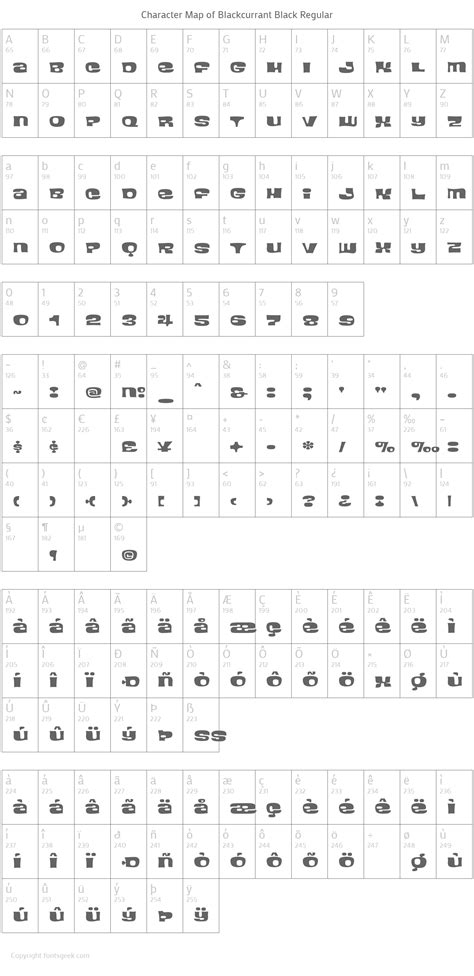
In the world of typography, fonts play a crucial role in setting the tone and style of any design project. Among the myriad of fonts available, the Blackcurrant Black Font stands out for its unique characteristics and versatility. This font is not just a tool for designers but a statement piece that can elevate the visual appeal of any project. Whether you are designing a logo, creating a poster, or crafting a website, the Blackcurrant Black Font offers a distinctive look that can make your work stand out.
Understanding the Blackcurrant Black Font
The Blackcurrant Black Font is a bold and modern typeface that combines elegance with a touch of edginess. Its thick, robust strokes make it highly readable, even at smaller sizes, while its clean lines give it a contemporary feel. This font is particularly popular among graphic designers and typographers who seek a font that can convey both strength and sophistication.
One of the standout features of the Blackcurrant Black Font is its versatility. It can be used in a variety of contexts, from formal documents to playful designs. Its ability to adapt to different styles makes it a favorite among professionals who need a font that can handle multiple projects without losing its impact.
Key Features of the Blackcurrant Black Font
The Blackcurrant Black Font comes with several key features that make it a top choice for designers:
- Bold and Modern Design: The font's thick strokes and clean lines give it a modern and bold appearance, making it ideal for headlines and logos.
- High Readability: Despite its boldness, the font remains highly readable, ensuring that your message is clear and easy to understand.
- Versatility: The Blackcurrant Black Font can be used in a wide range of projects, from formal documents to playful designs, making it a versatile tool for any designer.
- Contemporary Feel: The font's clean lines and modern design give it a contemporary feel, making it perfect for projects that require a fresh and modern look.
Applications of the Blackcurrant Black Font
The Blackcurrant Black Font is incredibly versatile and can be used in a variety of applications. Here are some of the most common uses:
- Logos and Branding: The bold and modern design of the Blackcurrant Black Font makes it an excellent choice for logos and branding. Its thick strokes and clean lines ensure that the brand name stands out and is easily recognizable.
- Posters and Flyers: For posters and flyers, the Blackcurrant Black Font can be used to create eye-catching headlines that grab attention. Its high readability ensures that the message is clear and easy to understand.
- Web Design: In web design, the Blackcurrant Black Font can be used to create a modern and sophisticated look. Its versatility allows it to be used in various elements, from headlines to body text.
- Print Media: For print media, such as brochures and magazines, the Blackcurrant Black Font can be used to create a clean and professional look. Its bold design ensures that the text stands out against the background.
Designing with the Blackcurrant Black Font
When designing with the Blackcurrant Black Font, there are several tips and tricks that can help you make the most of its unique characteristics. Here are some guidelines to follow:
- Pairing with Other Fonts: The Blackcurrant Black Font pairs well with a variety of other fonts. For a modern and sophisticated look, pair it with a clean, sans-serif font. For a more playful design, pair it with a script or handwritten font.
- Color Choices: The bold design of the Blackcurrant Black Font allows it to stand out against a variety of color backgrounds. For a classic look, use it with black or white text on a contrasting background. For a more vibrant design, experiment with bright colors.
- Size and Spacing: The Blackcurrant Black Font is highly readable, even at smaller sizes. However, for maximum impact, use it in larger sizes for headlines and important text. Adjust the line spacing and letter spacing to ensure that the text remains easy to read.
Here is a table to help you understand the different sizes and their best uses:
| Size | Best Use |
|---|---|
| 12-14pt | Body text |
| 18-24pt | Subheadings |
| 28-36pt | Headlines |
| 48pt and above | Display text |
📝 Note: Always preview your design at different sizes to ensure that the text remains readable and visually appealing.
Case Studies: Successful Use of the Blackcurrant Black Font
To illustrate the versatility and impact of the Blackcurrant Black Font, let's look at a few case studies where it has been successfully used:
Case Study 1: Logo Design
In a recent logo design project for a tech startup, the designer chose the Blackcurrant Black Font for its bold and modern appearance. The font's thick strokes and clean lines ensured that the company name stood out and was easily recognizable. The logo was used across various platforms, from the website to business cards, and received positive feedback for its modern and professional look.
In wrapping up, the Blackcurrant Black Font is a powerful tool for designers looking to create bold, modern, and sophisticated designs. Its versatility, high readability, and contemporary feel make it a top choice for a variety of applications, from logos and branding to web design and print media. By following the tips and guidelines outlined in this post, you can maximize the impact of the Blackcurrant Black Font and create designs that stand out and make a lasting impression.